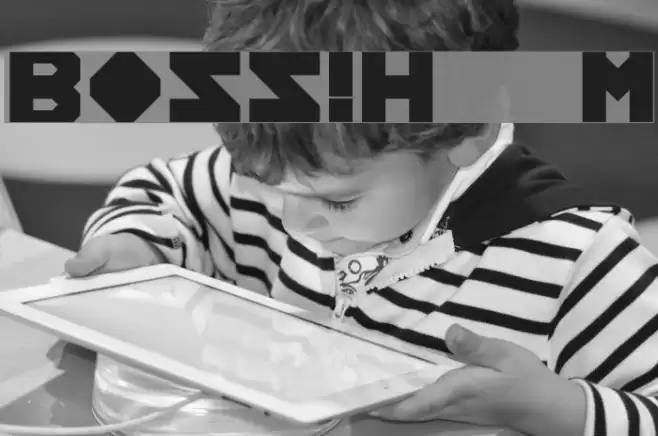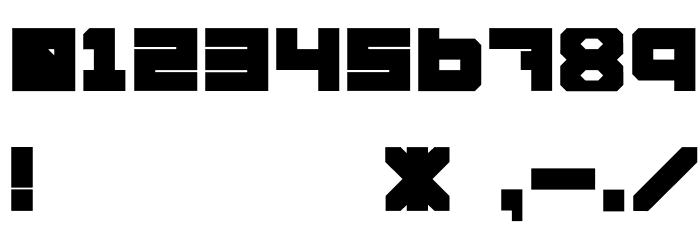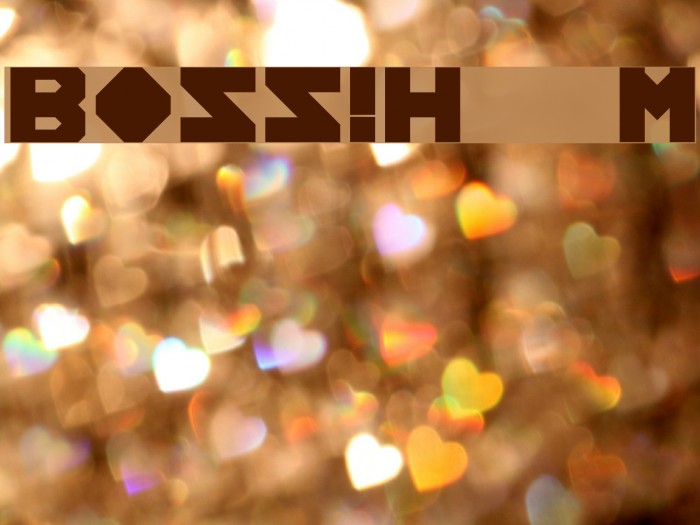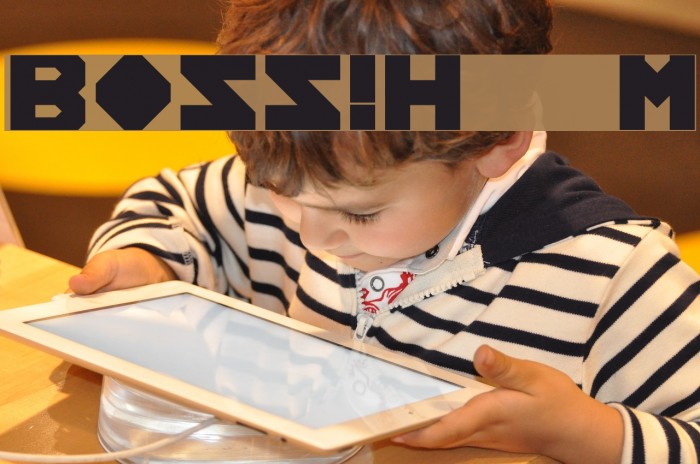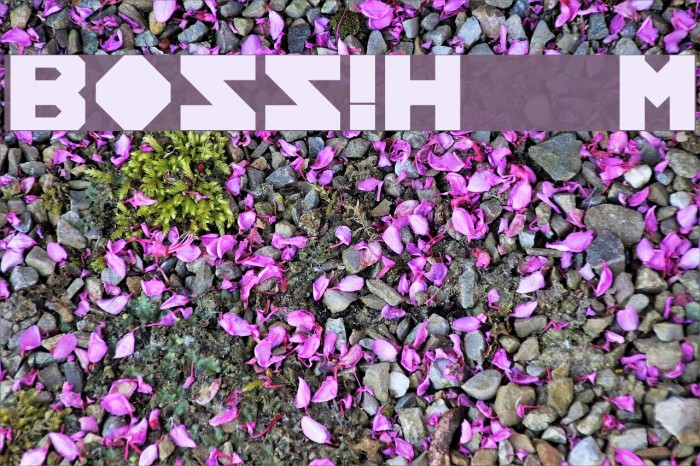
BOSS!HelpMe Font
BOSS!HelpMe Description
This font features a bold, geometric design with a strong emphasis on angular shapes and sharp edges. The characters are constructed with a uniform thickness, creating a cohesive and striking appearance. The uppercase letters are particularly distinctive, with each character exhibiting a unique combination of straight lines and angles. The numbers and special characters maintain the same bold and geometric style, ensuring consistency across all elements. This font's design is highly modern and eye-catching, making it suitable for projects that require a strong visual impact.
A bold, geometric font with angular shapes and uniform thickness from Uncategorized fonts.
- Proposed Projects: Ideal for branding, posters, headlines, and any design requiring a strong, modern aesthetic.